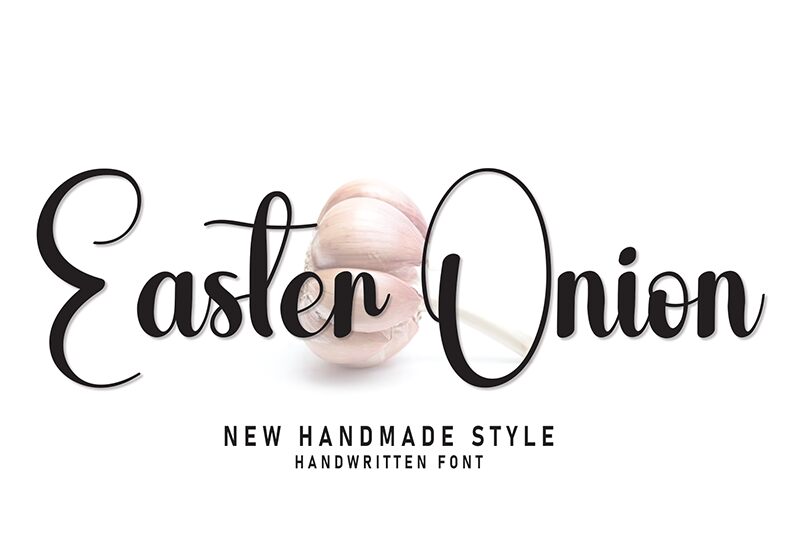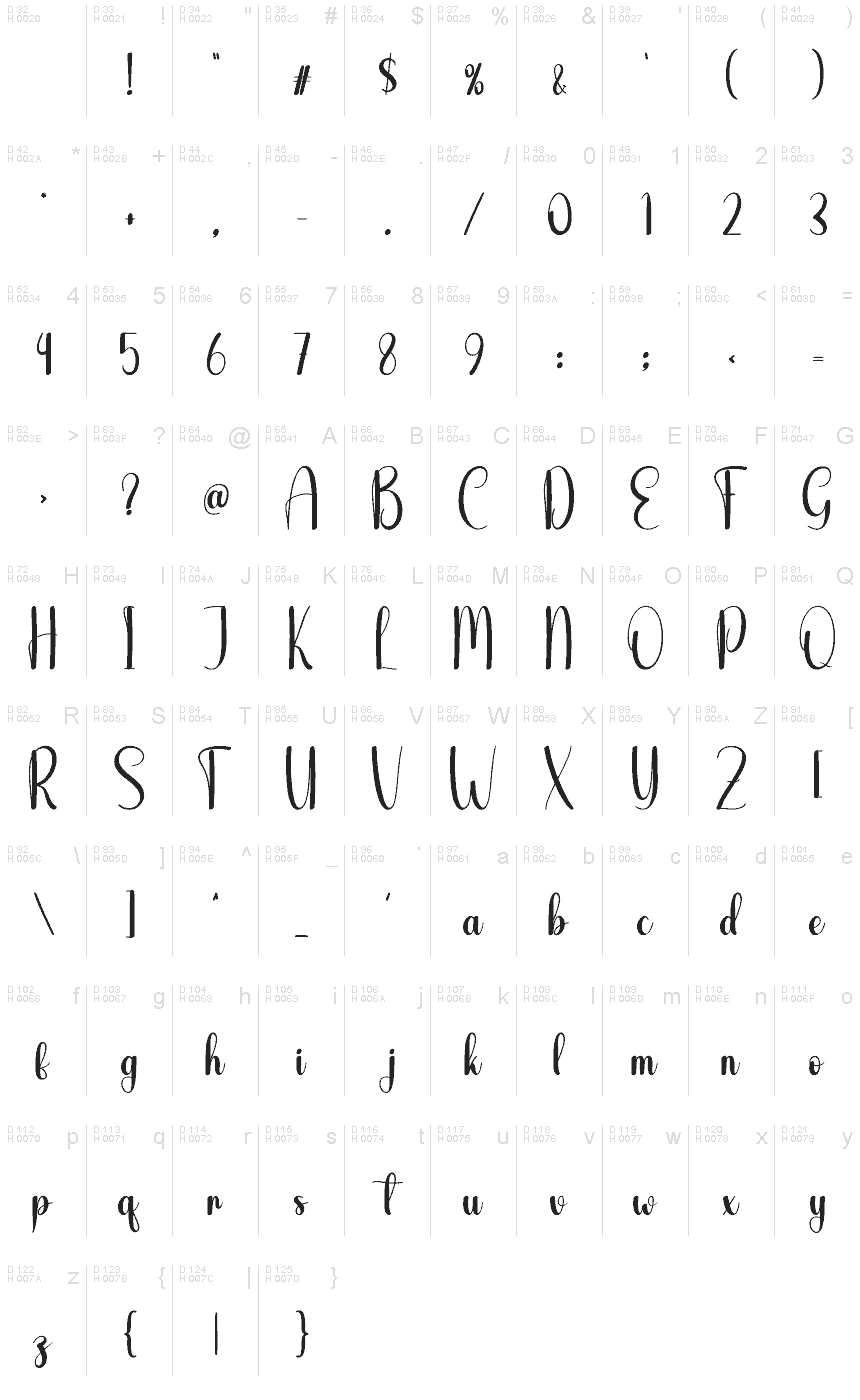
Easter Onion
Easter Onion font by Andi Moz is a modern handwritten typeface with classic calligraphy influence and decorative elements. The letters connect nicely and display an elegant, ornamental, and artistic flair suitable for fancy headings. In addition to appearing beautiful in long text, they also provide a smooth flow when used in wordmarks or logotypes.
Free script fonts such as Easter Onion are always great tools to have at hand especially when designing packaging & labels of jewelry, organic food, or luxurious cosmetics products. The font will also be ideal for thank you cards and personal invitations (for birthdays or wedding anniversaries).